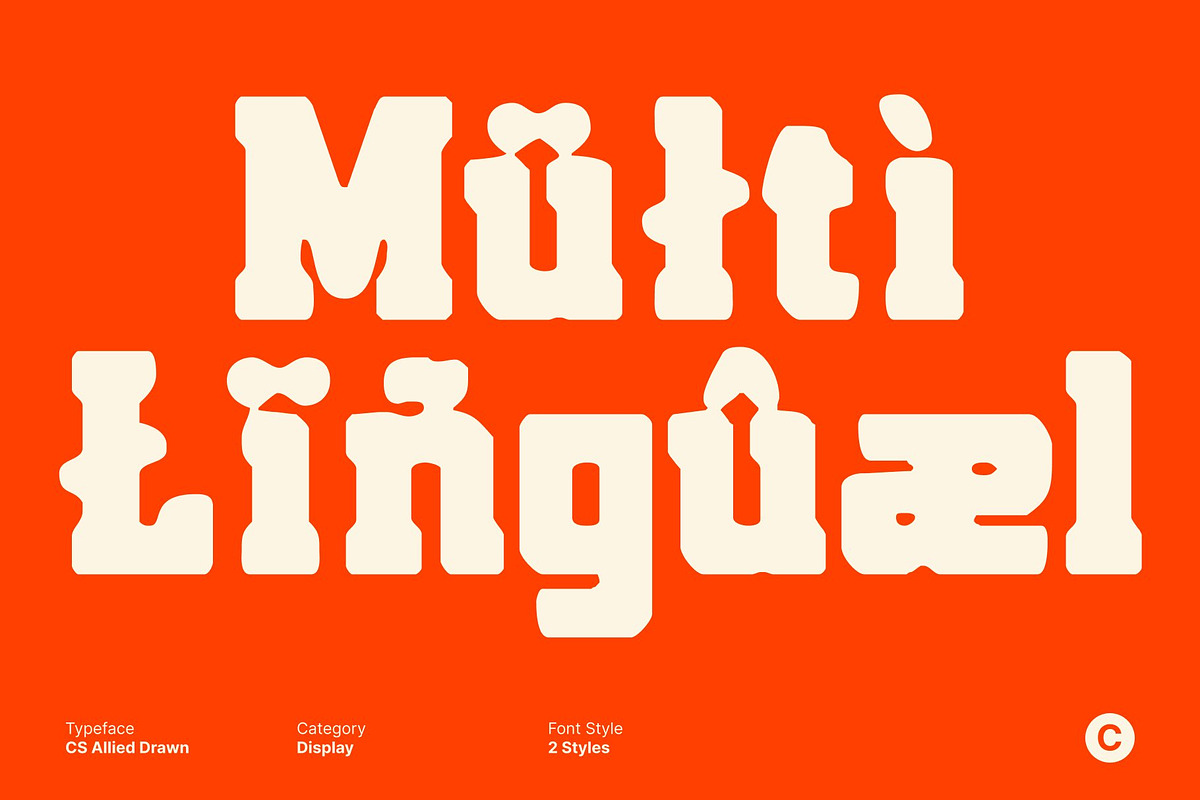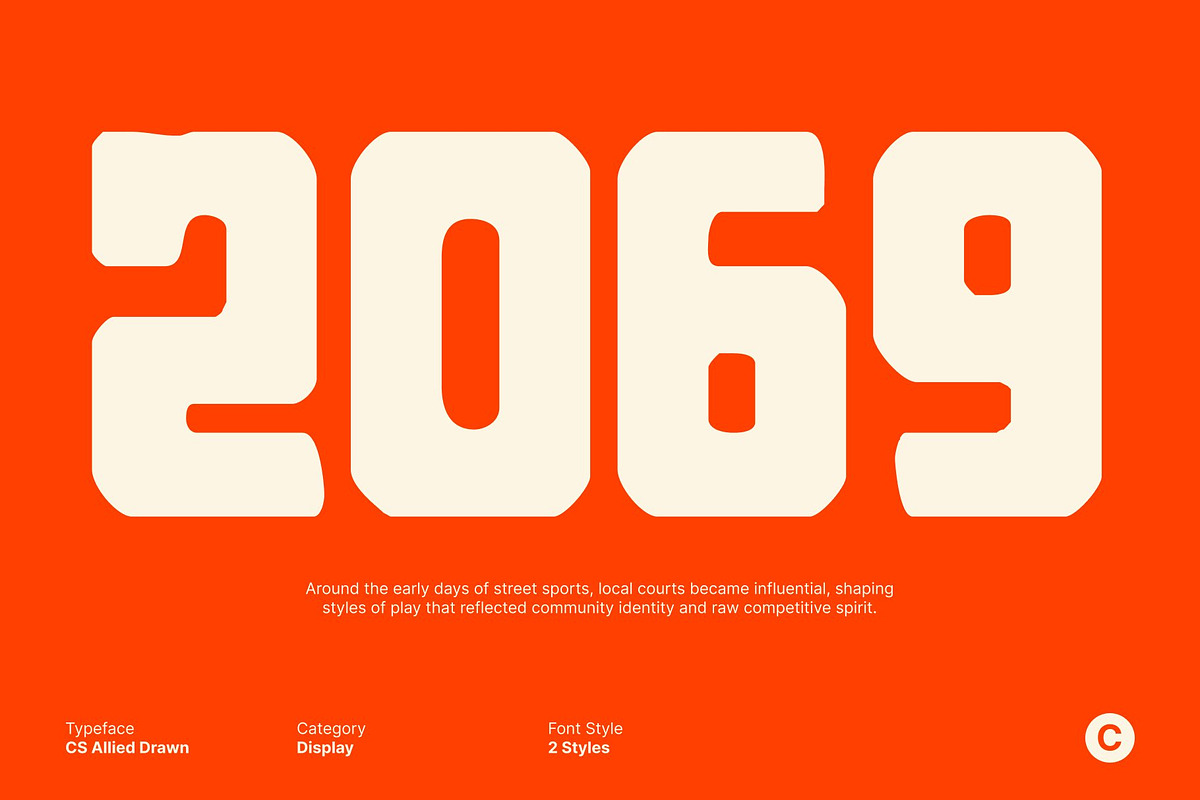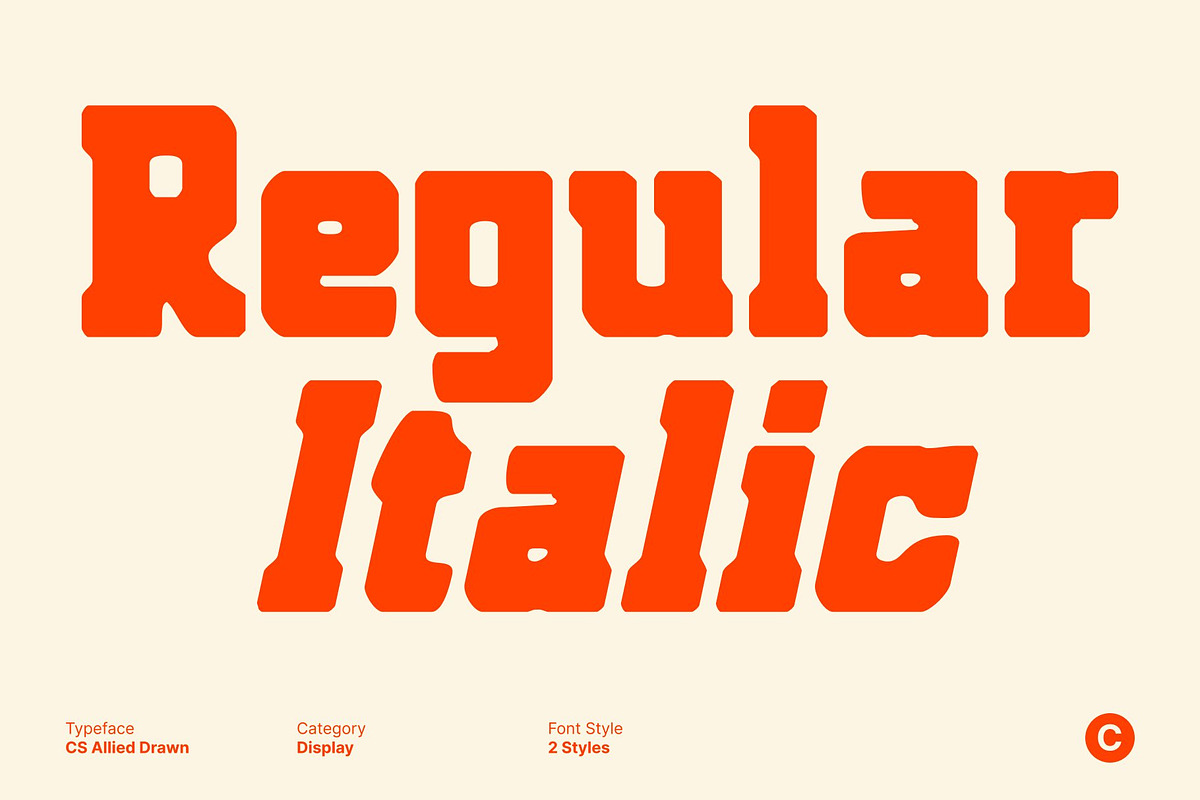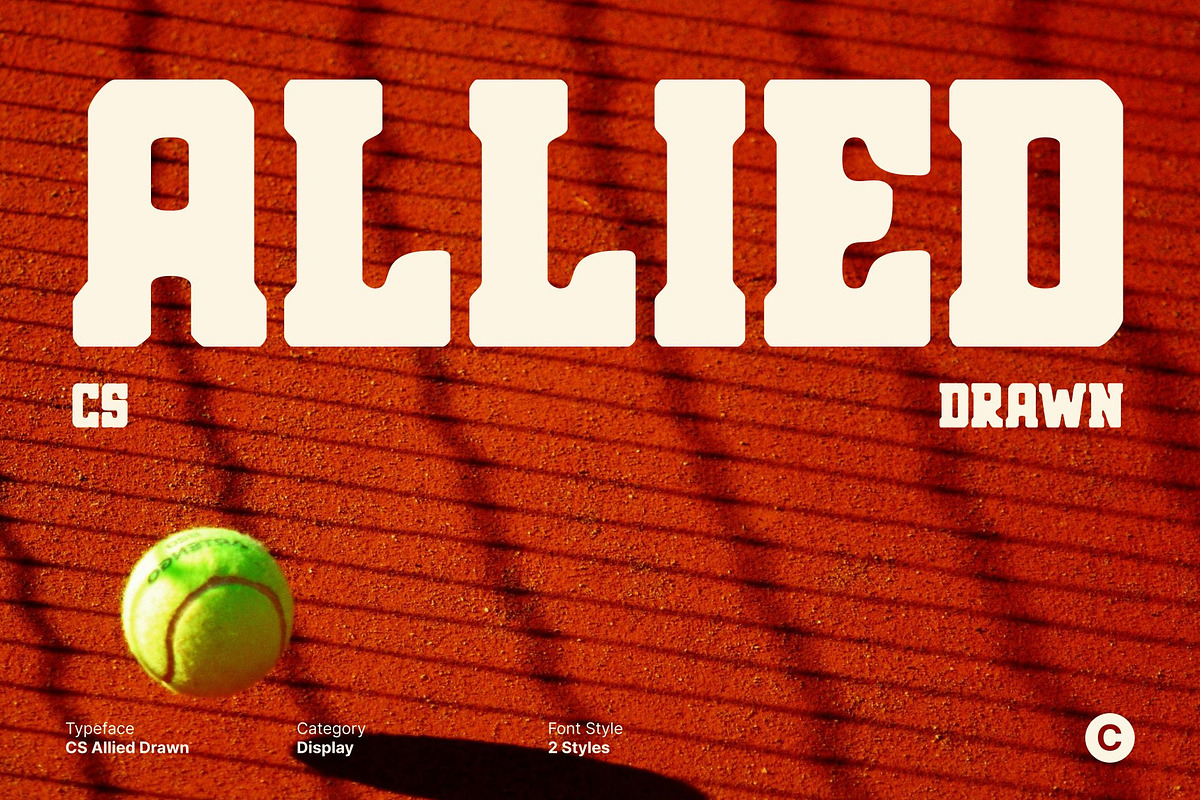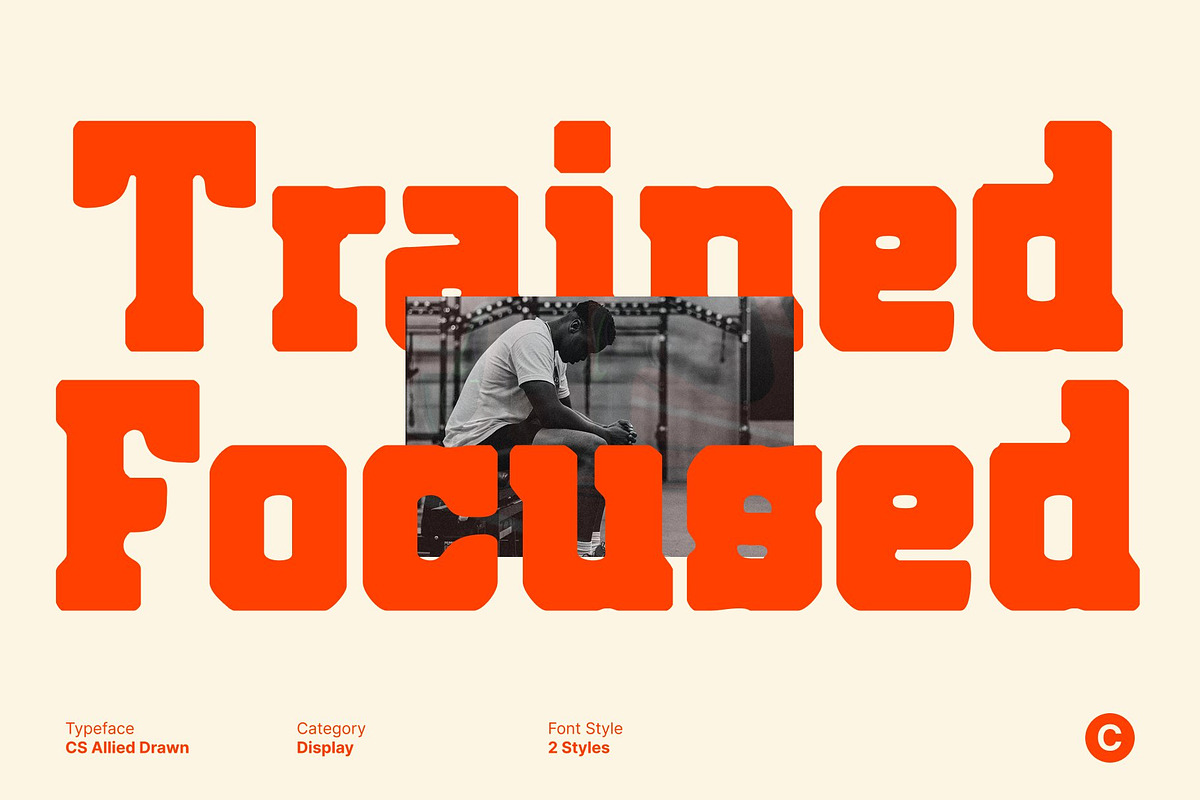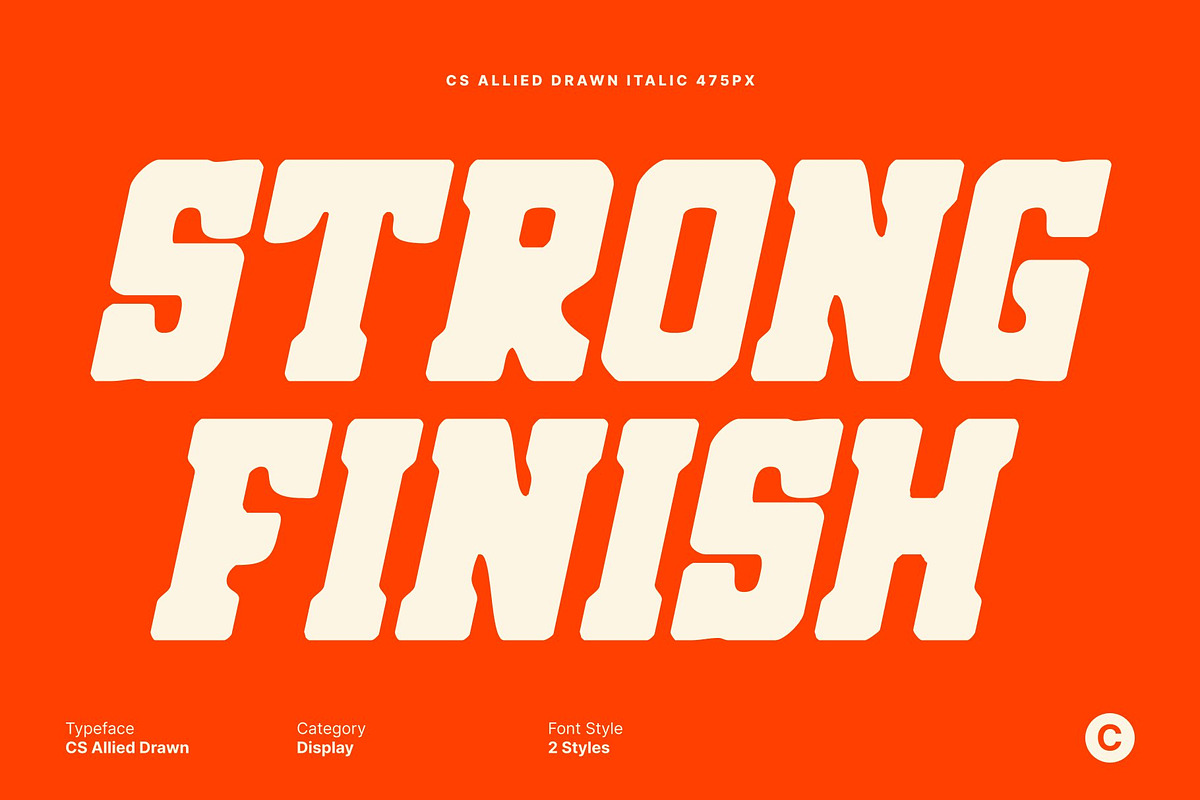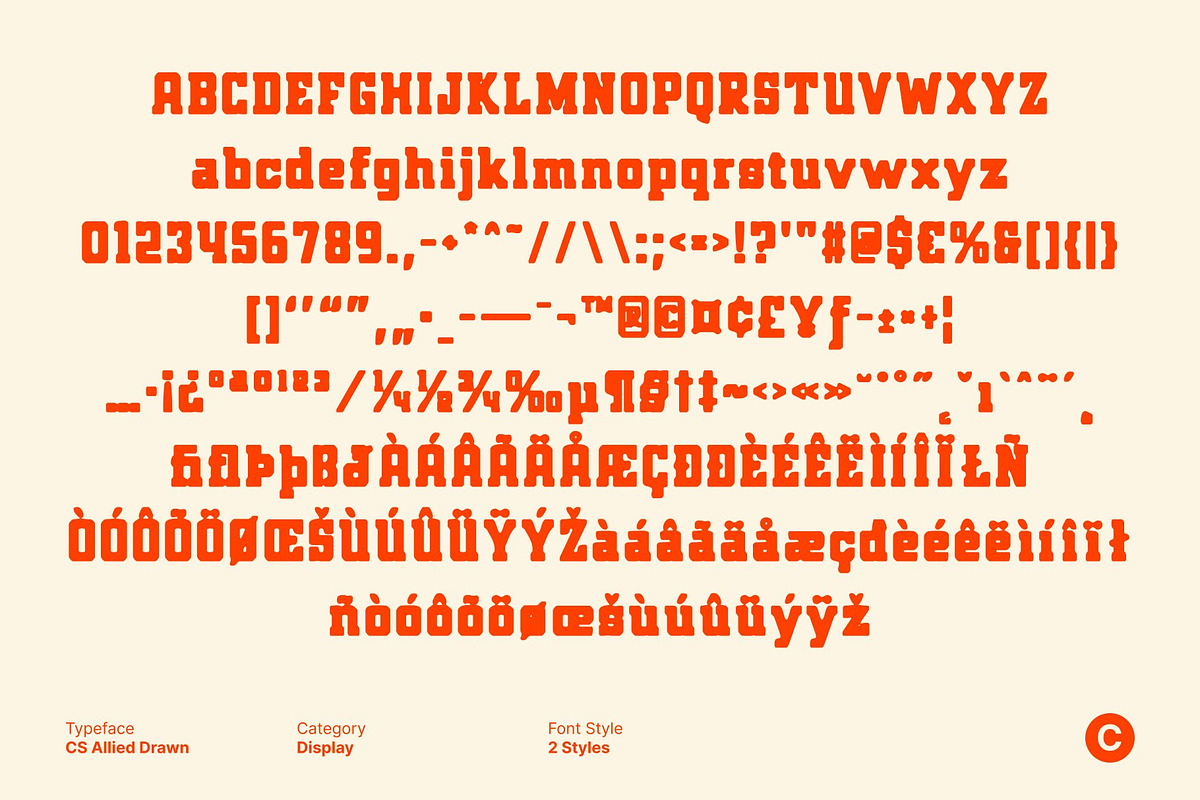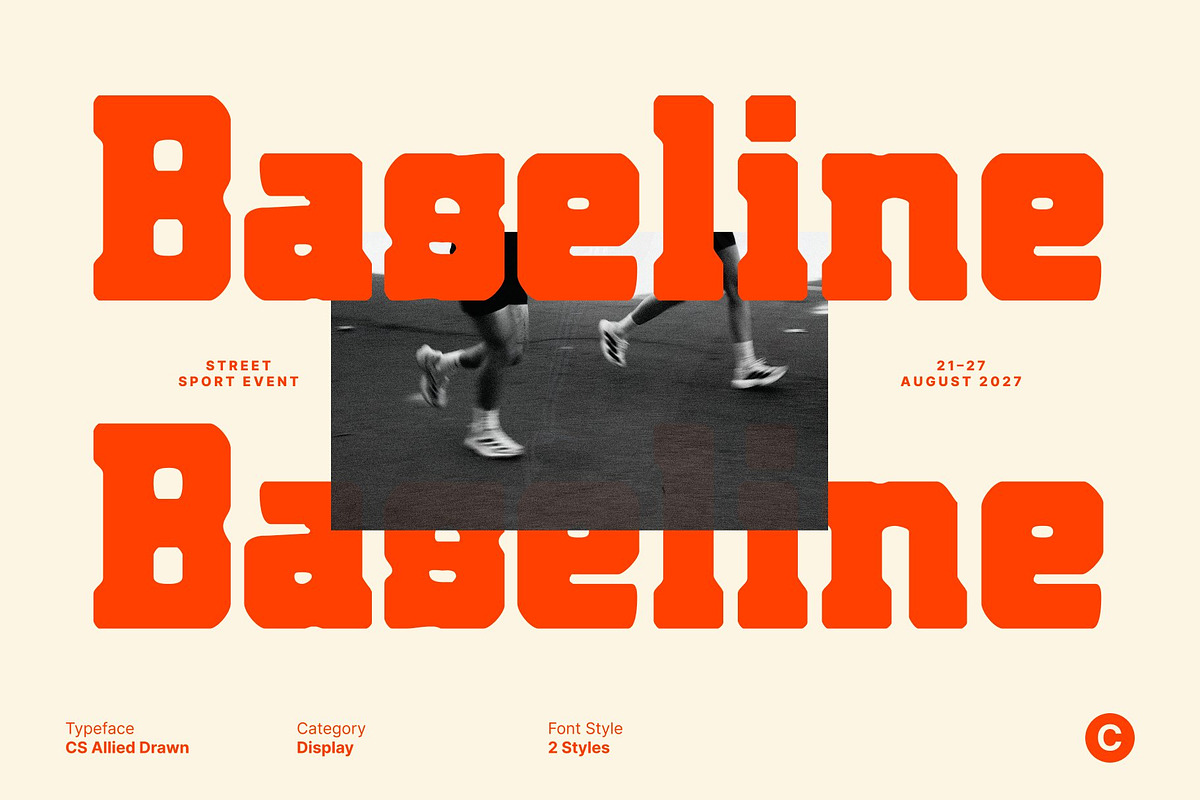
CS Allied Drawn
CS Allied Drawn – Sporty Slab Serif with Bold, Assertive Energy
Strong Slab Serif Design with a Sporty, Confident Tone This is a slab serif font built to project power, confidence, and competitive energy. Its bold structure and strong slab serifs create an athletic character that feels tough, disciplined, and ready for action. The overall design delivers a commanding presence, making every word feel firm, determined, and impactful.
Drawn Texture for Grit and Authentic Character Enhanced with a hand-drawn effect, this font gains a natural, textured quality that adds grit and personality to its solid construction. This subtle roughness softens the rigid geometry just enough to create a more human, expressive feel giving the font a unique balance between strength and authenticity.
High Visibility for Impactful Communication Designed for display use, this font maintains excellent readability at any size. Its thick strokes and sturdy details ensure clarity from both close range and long distance, making it ideal for headlines, banners, posters, billboards, and bold promotional graphics that demand instant attention.
Perfect for Sports Branding and Dynamic Promotion This font excels in sports graphics, team branding, event promotions, apparel designs, and energetic visual campaigns. Its assertive slab serif form combined with a rugged drawn texture makes it perfect for projects that require intensity, strength, and motion turning typography into a powerful statement of action and confidence.
- CS Allied Drawn Regular
- CS Allied Drawn Italic